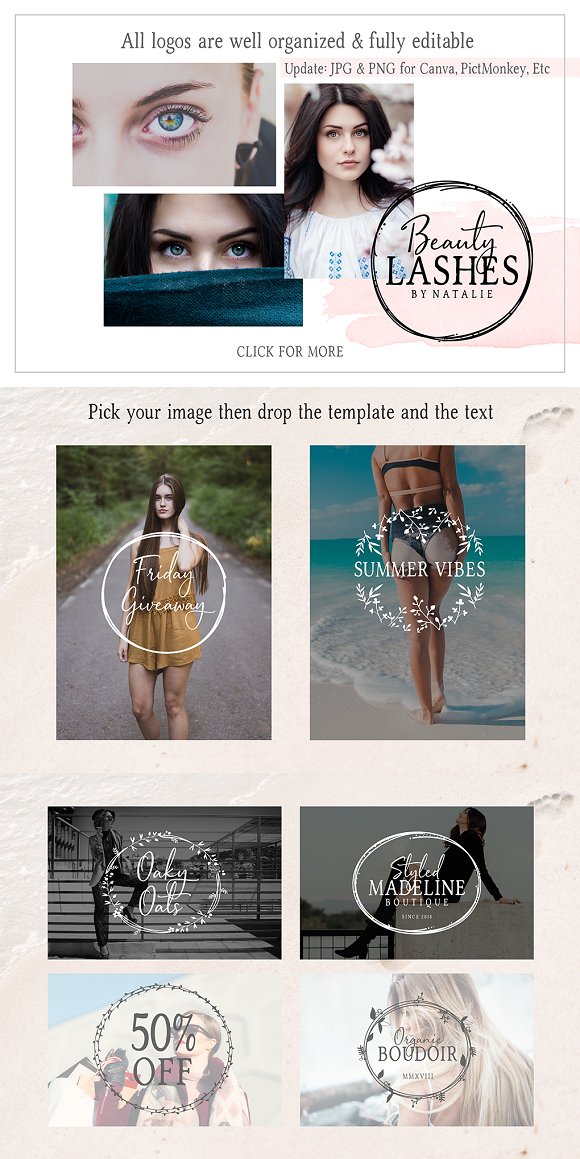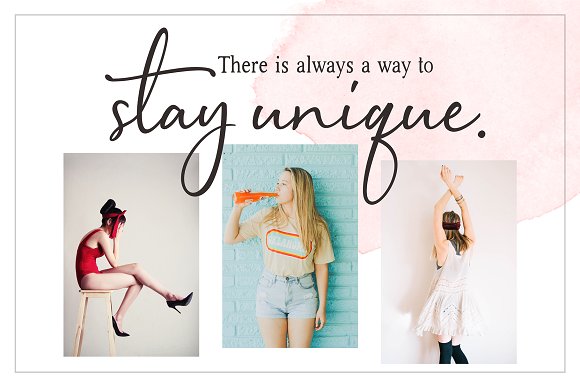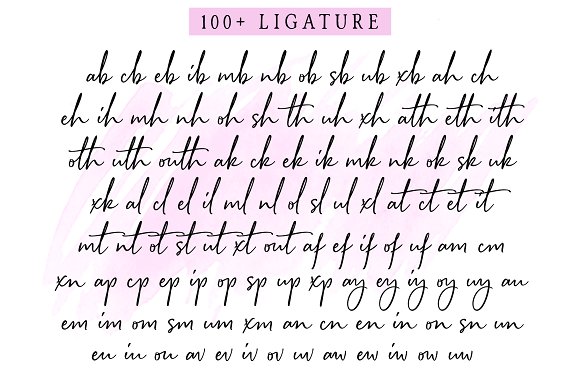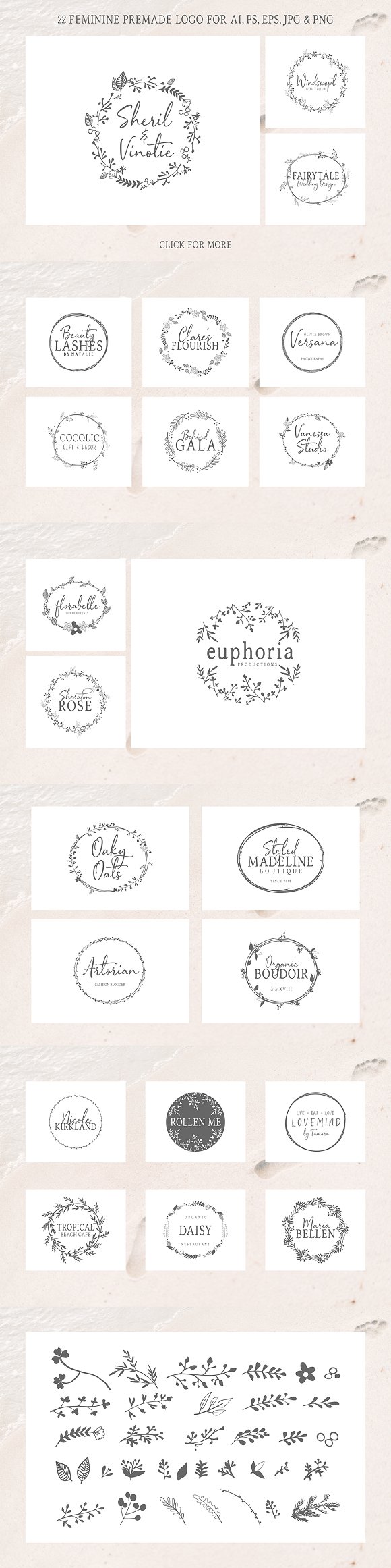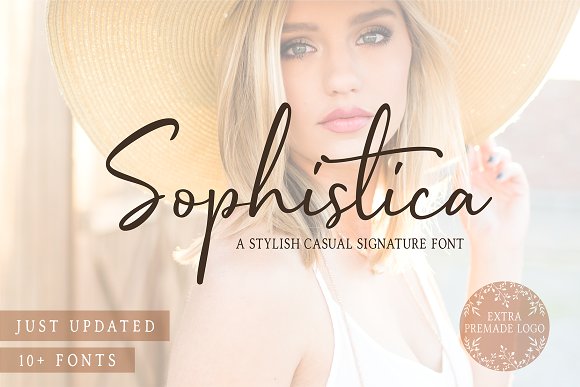
Sophistica – 10 Fonts & Extras
Introducing the Sophistica Stylish Font a classy, fun and fabolous dreamy font inspired by luxury fashion. Sophistica contains 10 Classy Variations, opentype features such as stylistic alternates, swashes & massive ligatures.
This fonts also perfect paired with Handsketched Sophistica Serif and Cutecaps font. It’s great for logo, printed quotes, badge, insignia, packaging, headline, poster, t-shirt/apparel, greeting card, and wedding invitation, & etc.
Sophistica Stylish Font includes 22 Exclusive Premade Feminine Logos that you can modify as you want to create some gorgeous designs.